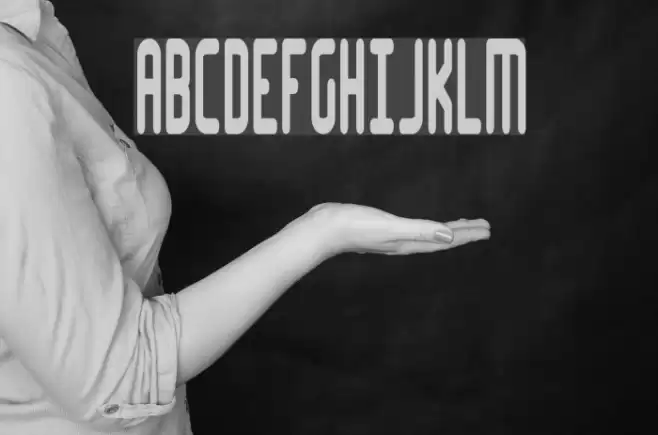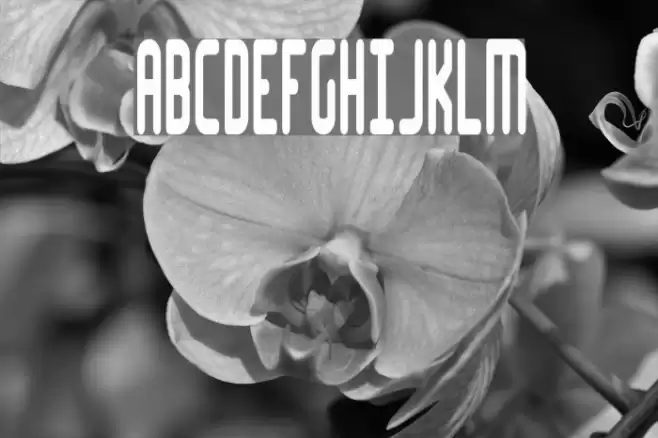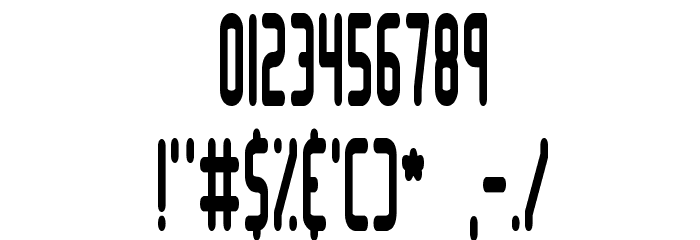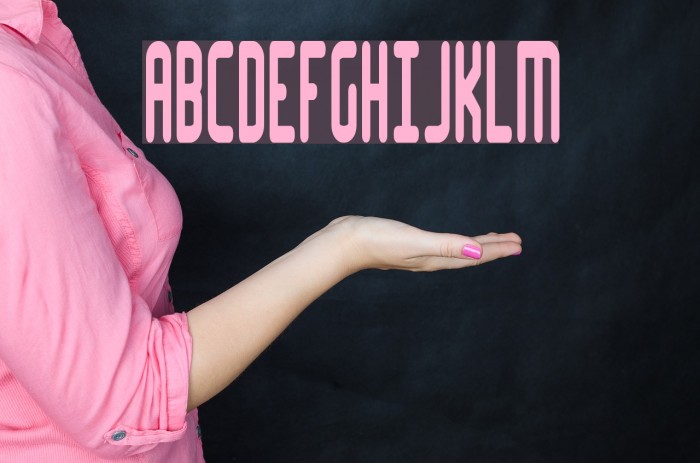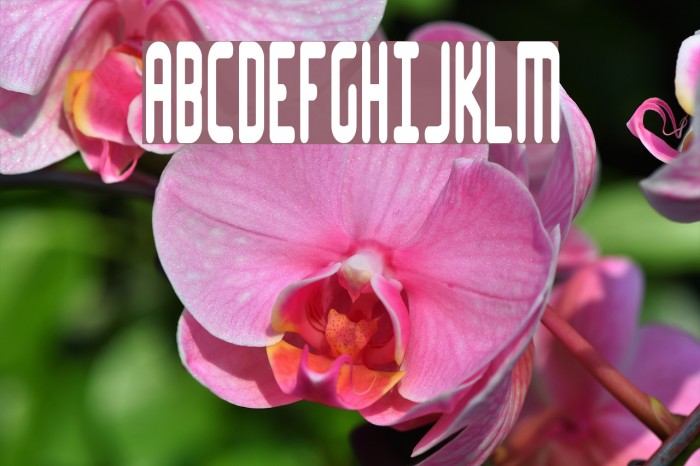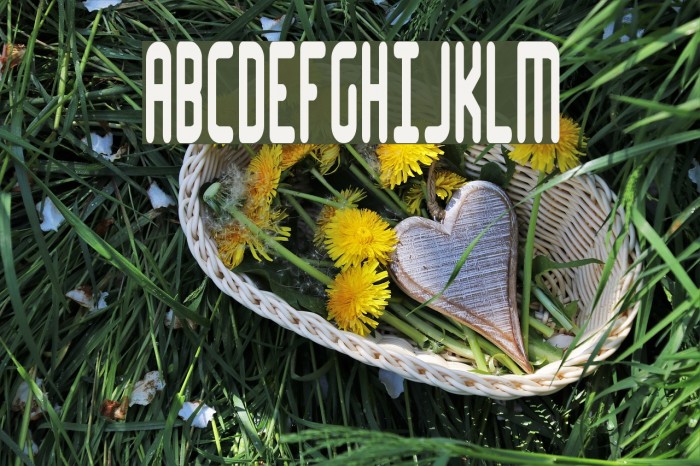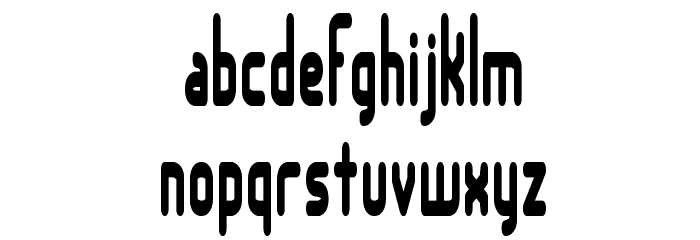
Lakeshore BRK Font
Lakeshore BRK Description
This font features a bold and rounded style with a modern and playful aesthetic. The characters are uniformly thick, giving it a strong presence. The rounded edges soften the overall look, making it approachable and friendly. The uppercase and lowercase letters maintain a consistent height, while the numerals and special characters complement the alphabet with similar rounded forms. The font's design is clean and legible, suitable for various creative applications.
A bold, rounded font with a modern and playful style from Formal fonts.
- Proposed Projects: Ideal for children's books, playful branding, posters, and digital media where a friendly and approachable look is desired.